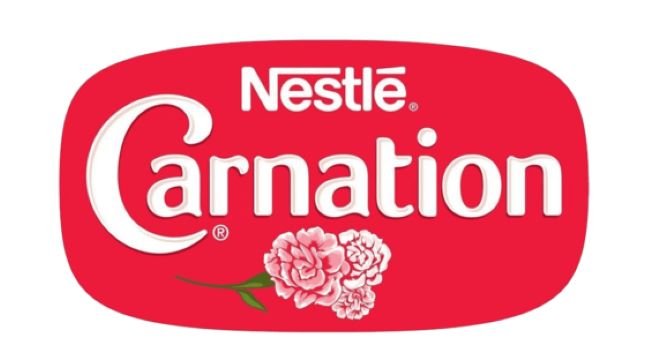
Carnation font — a smooth, rounded, gently elegant typeface that evokes the comforting warmth of a brand that has been in family kitchens since 1899 — is the typography of a Nestlé dairy brand whose product has appeared in more holiday baking recipes, handed down across more generations, than perhaps any other single tin in American pantry history. The letterforms carry the same qualities as the brand itself: nothing sharp or aggressive, nothing that would unsettle the person who has been buying evaporated milk for sixty years and sees no reason to change, but a quiet confidence and timeless readability that communicates reliability without ever feeling institutional. Its graceful curves and balanced proportions create the visual equivalent of something trusted, tested, and always exactly what you expected. The freely available Carnation Font Alternative channels this warm, nostalgic, heritage-dairy typographic register.